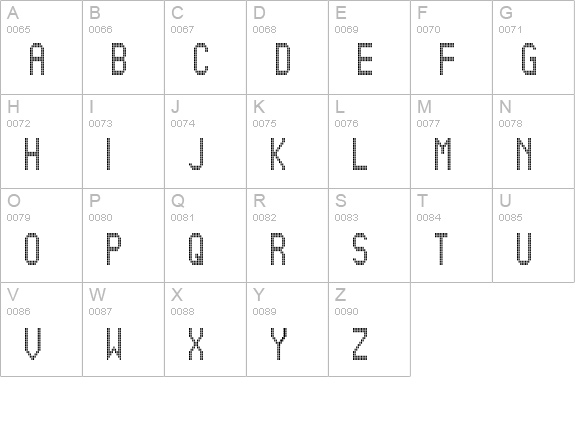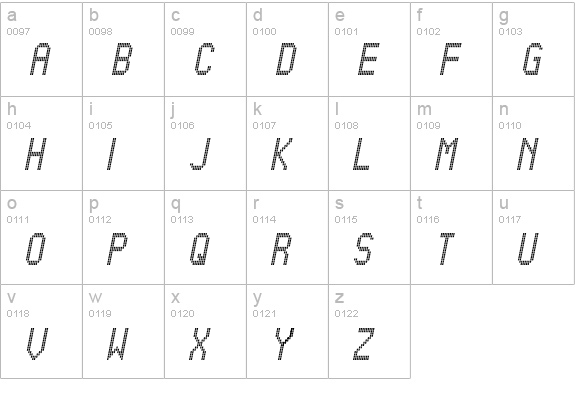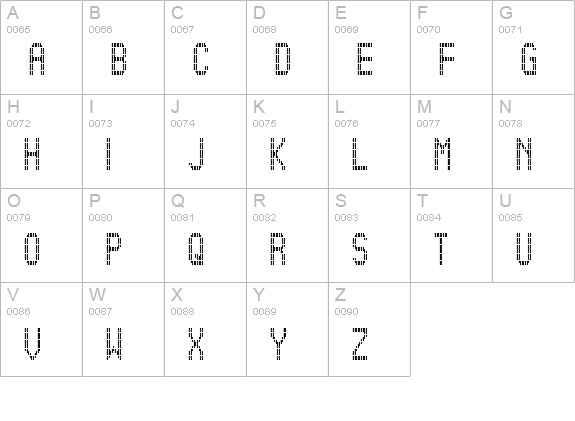
11th floor Font Details
The 11th floor font is a mesmerizing and captivating typeface that will elevate your design projects to new heights. With its elegant curves and bold lines, this font exudes a sense of sophistication and modernity. Whether you are designing a logo, a website, or any other creative endeavor, the 11th floor font will effortlessly catch the eye and leave a lasting impression. This font offers a wide range of versatility, making it suitable for both headline and body text. Its legibility ensures that your message will be conveyed clearly and effectively, while its unique style adds a touch of creativity and individuality to your designs. From sleek and minimalistic to bold and expressive, the 11th floor font can adapt to any aesthetic, making it a must-have for designers of all backgrounds. One of the best things about the 11th floor font is that it is available for free download at FontsMarket.com. This means that you can instantly access and use this incredible font in your projects without any cost. FontsMarket.com is a trusted source for high-quality fonts, and their vast collection ensures that you can find the perfect typeface for any project. Don't miss out on the opportunity to enhance your designs with the 11th floor font. Download it for free at FontsMarket.com and unlock a world of creative possibilities. Elevate your design game with this stunning font and make a lasting impression on your audience.